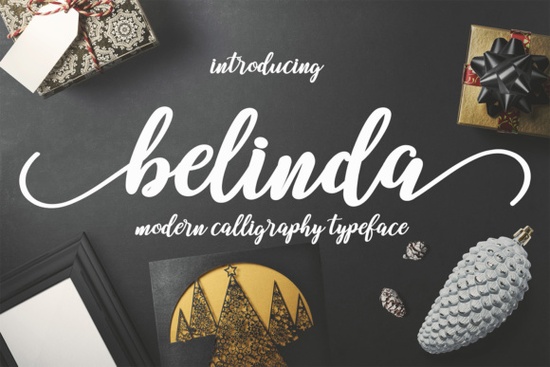
If you’ve been scrolling through script fonts looking for something that feels personal, elegant, and just a little bit playful, you might want to take a closer look at Belinda Script Font. It’s got that fresh, modern calligraphy vibe like someone just dipped a brush pen and wrote your headline by hand. Whether you’re designing wedding invites, branding a small shop, or putting together quote graphics for social media, Belinda brings warmth without being fussy.
What makes Belinda Script Font stand out from other handwritten styles?
Not all script fonts are created equal. Some feel stiff. Others are too loopy or hard to read at smaller sizes. Belinda finds a sweet spot it’s fluid but legible, stylish but not overwhelming. The letterforms have subtle variations in stroke width and gentle bounce, which gives it that authentic hand-lettered charm. You’ll notice it especially when used in headlines or logos where personality matters more than uniformity.
If you’ve tried fonts like Sunset Brush or The Blendhes, you already know how much character a good script can add. Belinda sits right alongside them maybe even a step ahead if you’re going for something that feels current but timeless.
Where does this font work best?
Here’s where Belinda really shines:
- Wedding & event stationery invitations, menus, place cards
- Small business branding boutique logos, packaging, thank-you tags
- Social media quotes those inspirational posts that need a human touch
- Print-on-demand products mugs, totes, stickers with custom phrases
- Posters and flyers especially for cafes, florists, or handmade goods
It’s also surprisingly versatile across weights and pairings. Try it with a clean sans-serif for contrast, or go full whimsy with something like Fantastic for layered text effects.
Is it beginner-friendly for non-designers?
Absolutely. You don’t need to be a pro to make Belinda look great. Most design platforms (Canva, Silhouette Studio, Cricut Design Space) handle OpenType features well enough for basic use. If you’re using Adobe apps, you’ll get access to stylistic alternates and ligatures little extras that help avoid repetitive letter combinations.
One tip: give it some breathing room. Script fonts like this one need spacing to show off their curves. Cramping the letters or scaling them too small can muddy the effect. Stick to display sizes (24pt and up) for best results.
How does it compare to similar fonts on Creative Fabrica?
If you’ve browsed the handwritten bundle section, you’ve probably seen dozens of script options. Belinda doesn’t try to be the most ornate or the most minimal it’s right in the middle. Think of it as the “everyday elegant” choice.
For example:
- Bubble is rounder, bouncier great for kids’ designs or fun branding.
- Fantastic leans dramatic, with exaggerated swashes.
- Belinda? It’s the one you reach for when you want charm without chaos.
And if you’re building a collection, pairing Belinda with something structured like a geometric sans or a classic serif creates instant visual hierarchy. No design degree required.
Any hidden tricks or tips for getting the most out of it?
Yes and they’re simple:
- Use it sparingly. One headline, one logo, one signature line. Scripts lose impact when overused.
- Play with color. Try deep burgundy, sage green, or warm terracotta instead of black for softer appeal.
- Layer with texture. Place it over watercolor backgrounds, kraft paper, or linen textures to enhance that handmade feel.
- Check kerning manually. Even though Belinda includes ligatures, sometimes a quick manual tweak between tricky letter pairs (like “Ty” or “Lo”) makes all the difference.
Also worth noting: if you’re selling physical products (stickers, shirts, mugs), Belinda holds up well in print. The strokes are thick enough to survive screen printing or vinyl cutting without breaking apart.
Fonts like Belinda aren’t about following trends they’re about adding a human signature to your work. Whether you’re making something for yourself, your Etsy shop, or your client’s new bakery, this one helps you say it with style… without shouting.